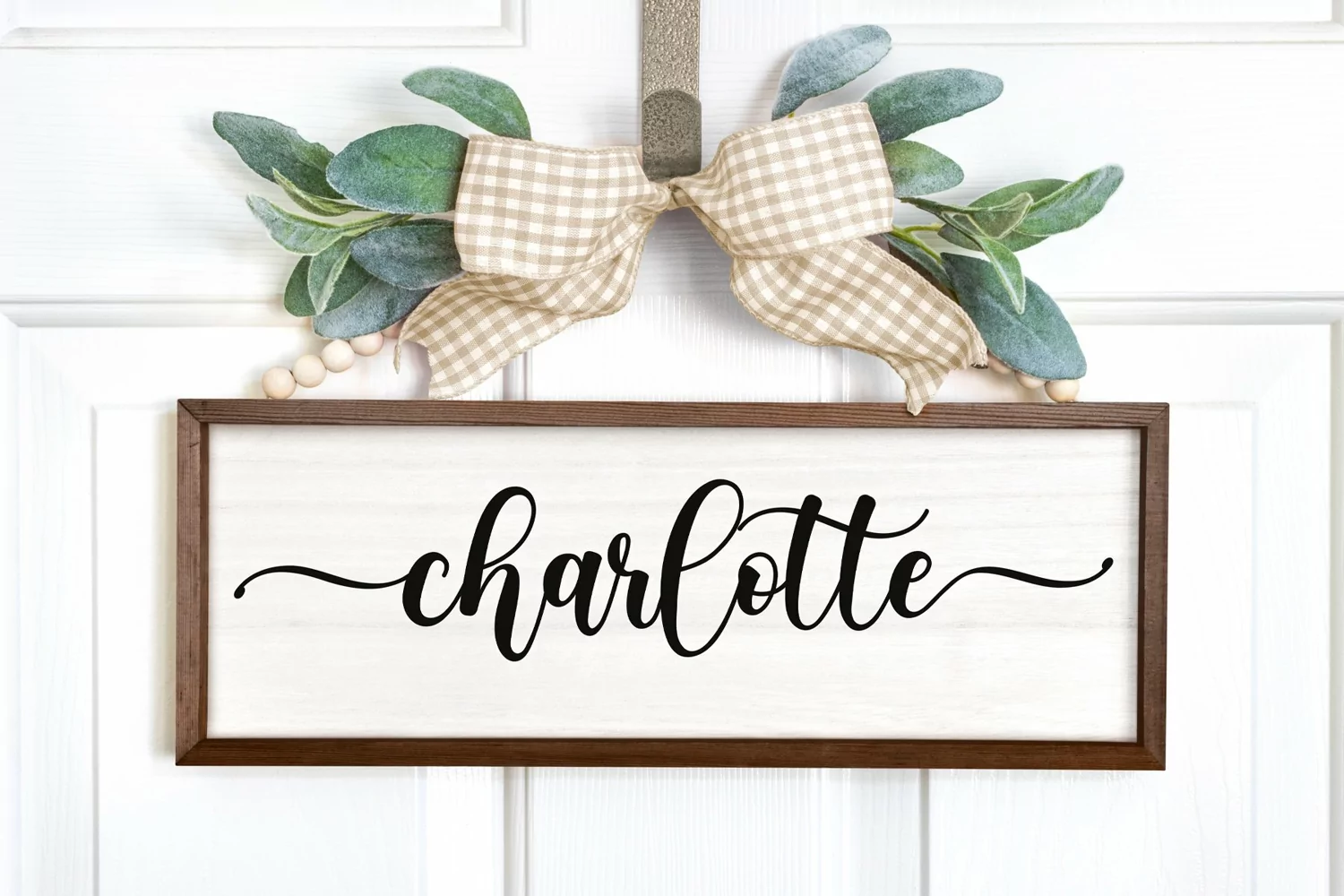
Bangstyle - Long Tail Swash Font Script
Bangstyle is bouncy calligraphy with elegant vibes.
Bangstyle has long tail front swash for uppercase and lowercase and back swash for lowercase. It will create fancy look with its swashy tail.
Bangstyle is perfect script font for any elegant projects, such as wedding invitation, branding, logo,, label, crafting, and others.